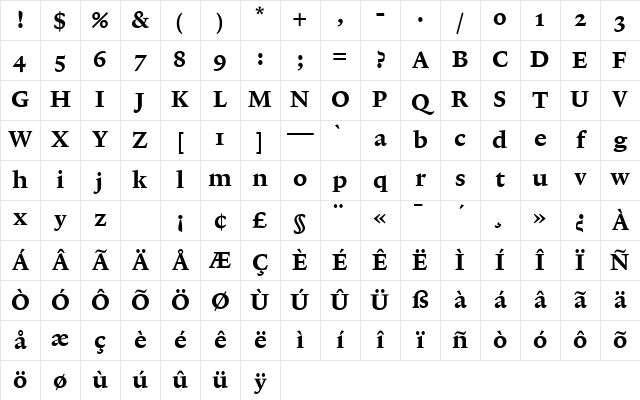
Lexicon No1 Roman D Txt
Style: Roman D Txt
Design Context for Lexicon No1
Lexicon No1 is a composed and adaptable typeface that performs quietly and consistently across a wide range of design contexts.
Pro Tip: Use Lexicon No1 in both headline and body roles to test its range before committing to a single application.